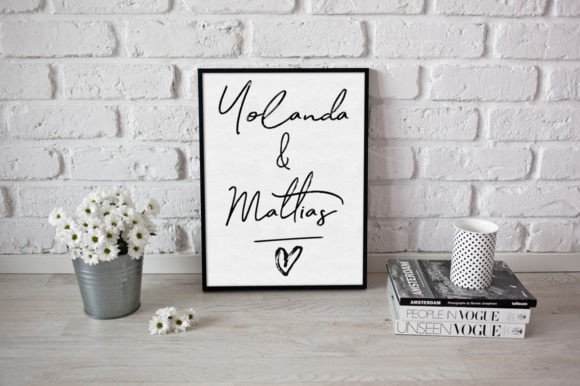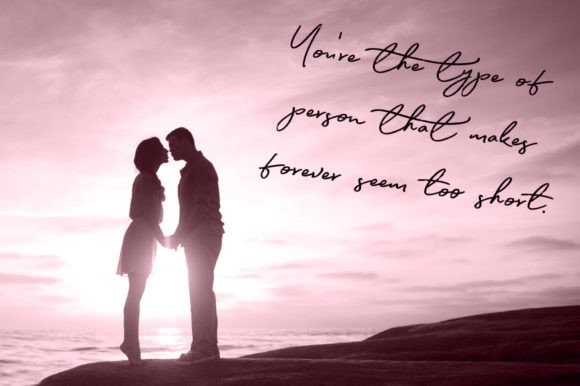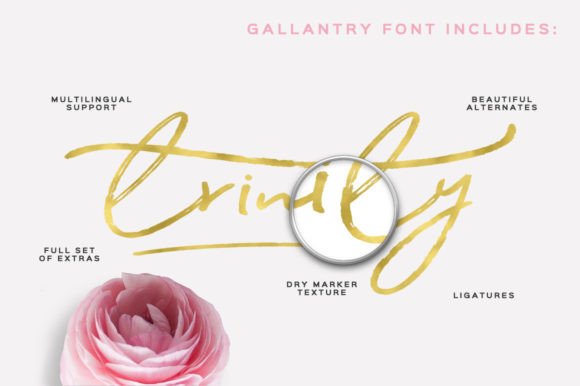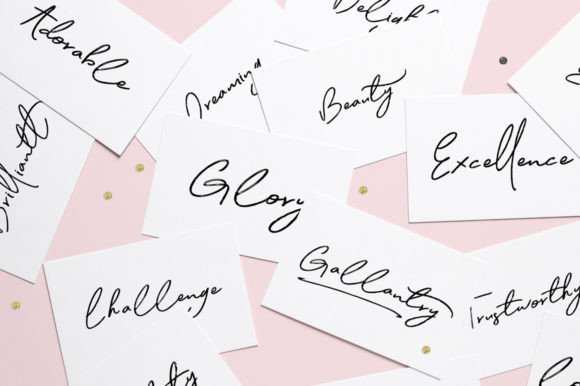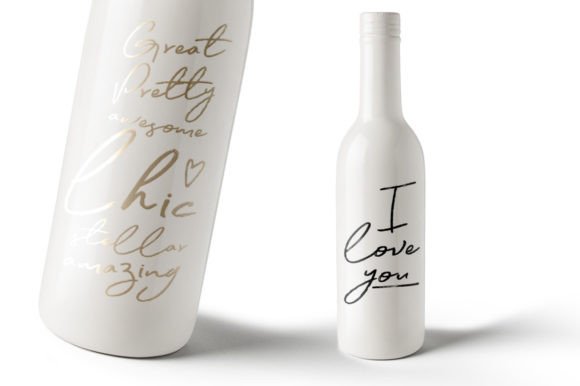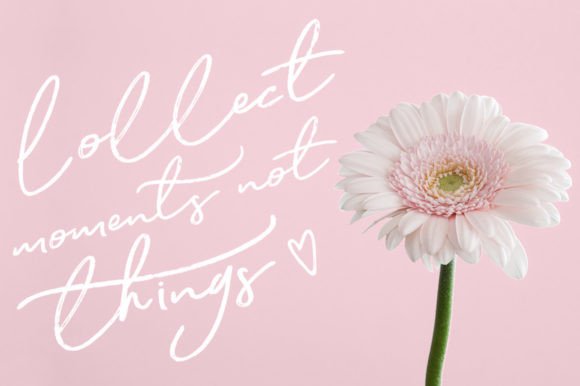
Gallantry Font: A Unique Dry Marker Font for Creative Projects
Are you a designer or crafter looking for a font that adds a personal touch to your creative projects? Look no further than the Gallantry Font, a dry marker font made with love and care. This unique font is perfect for a variety of projects, from t-shirts and mugs to stickers and totes.
What Makes Gallantry Font Special?
Gallantry Font is a hand-drawn font that features a distinctive texture and alternates, including swirly “ts” that make it stand out from other fonts. The font includes all uppercase and lowercase characters, numbers, and punctuation, making it versatile and easy to use.
One of the unique features of Gallantry Font is its hand-drawn forms, which give it a personal and organic feel. The font is made to look like it was drawn with a dry marker, adding a touch of imperfection and charm to your designs.
Gallantry Font is perfect for a wide range of creative projects, including:
- T-shirts: Add a personal touch to your t-shirt designs with Gallantry Font.
- Mugs: Create unique and personalized mugs with this charming font.
- Stickers: Use Gallantry Font to create custom stickers for any occasion.
- Totes: Add a touch of personality to your tote bag designs with this versatile font.
Key Features of Gallantry Font
Here are some of the key features that make Gallantry Font a must-have for designers and crafters:
- Hand-drawn forms for a personal touch
- Texture and alternates for added interest
- Swirly “ts” for a unique look
- Includes all uppercase and lowercase characters, numbers, and punctuation
- Dry marker font for a distinctive look
Why Choose Gallantry Font?
There are many fonts available for designers and crafters, but Gallantry Font stands out from the crowd. Here are just a few reasons why:
- Unique and distinctive look
- Easy to use and versatile
- Perfect for a wide range of creative projects
- Made with love and care for a personal touch
Tips for Using Gallantry Font
Here are a few tips for getting the most out of Gallantry Font:
- Use Gallantry Font to create custom illustrations and graphics.
- Pair Gallantry Font with other fonts for a unique and eye-catching look.
Gallantry Font is a unique and versatile dry marker font that is perfect for designers and crafters. With its hand-drawn forms, texture, and alternates, this font adds a personal touch to any creative project. Whether you’re making t-shirts, mugs, stickers, or totes, Gallantry Font is a great choice. So why wait? Download Gallantry Font today and start creating your own unique designs!